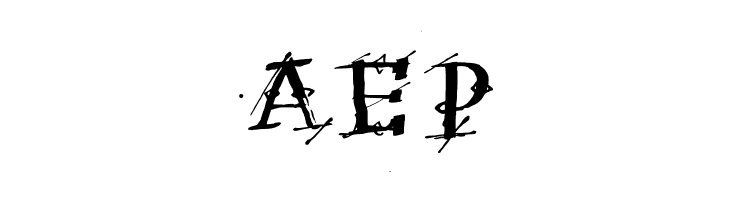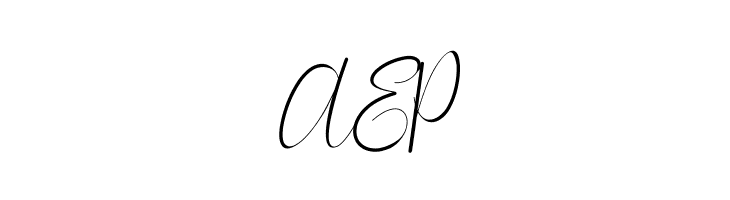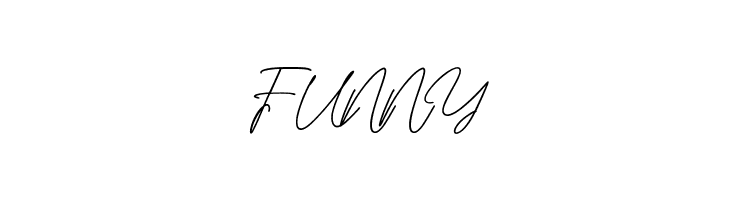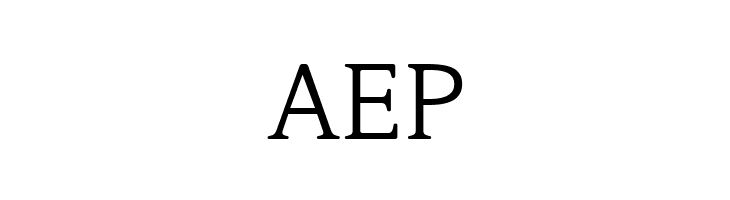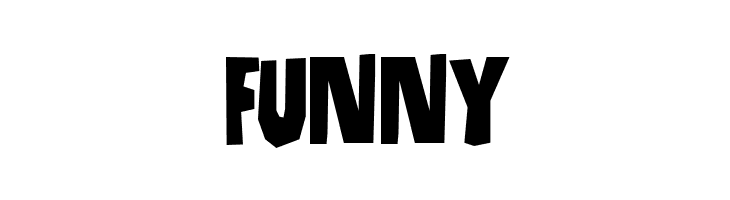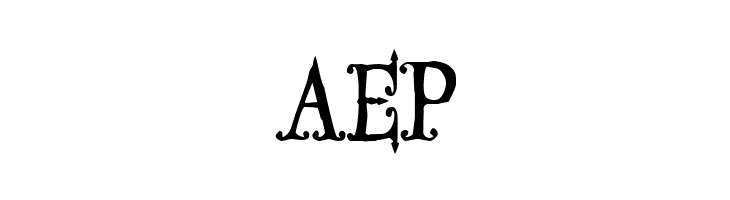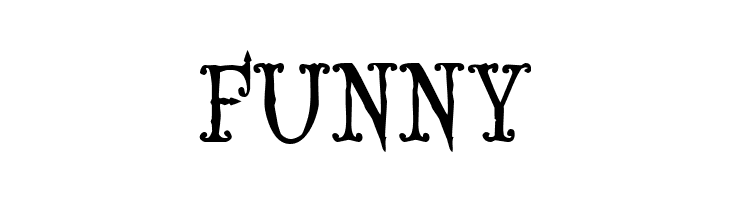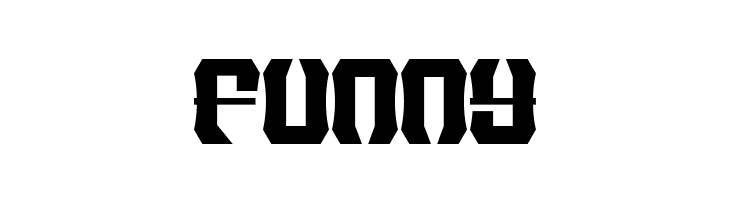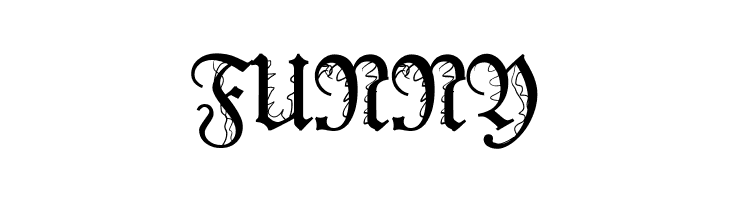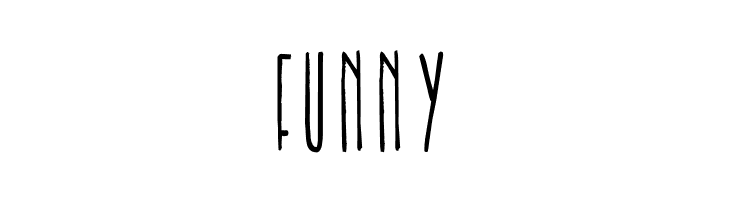
A bold, angular font with a futuristic and aggressive style.
A bold, industrial font with a bolted, mechanical design.
A decorative Blackletter font with intricate, gothic-inspired letterforms.
A tall, narrow font with an industrial and vintage aesthetic.
An ornate, decorative font with intricate, stained glass-like designs.
A bold, angular font with a futuristic and industrial design.
A flowing, cursive script font with elegant, interconnected letters.
A high-contrast, modern-vintage font with bold uppercase and refined lowercase letters.
A high-contrast, modern-vintage font with bold uppercase and elegant lowercase letters.
A modern-vintage font with high contrast and decorative elements.
A bold, playful font with rounded, cartoonish characters and high contrast.
A bold, playful font with exaggerated serifs and dynamic curves.
A decorative font with industrial, ironwork-inspired serifs and bold characters.
A classic serif font with a balanced and elegant appearance, ideal for traditional and sophisticated designs.
A bold, modern font with sharp angles and a dynamic, urban style.
A playful, handwritten font with dynamic strokes and an informal style.
A bold, playful font with rounded edges and a modern style.
A bold, geometric font with a modern, uniform appearance.
A bold, distressed font with a vintage, rugged texture.
A bold, angular font with a rugged, vintage-inspired style.